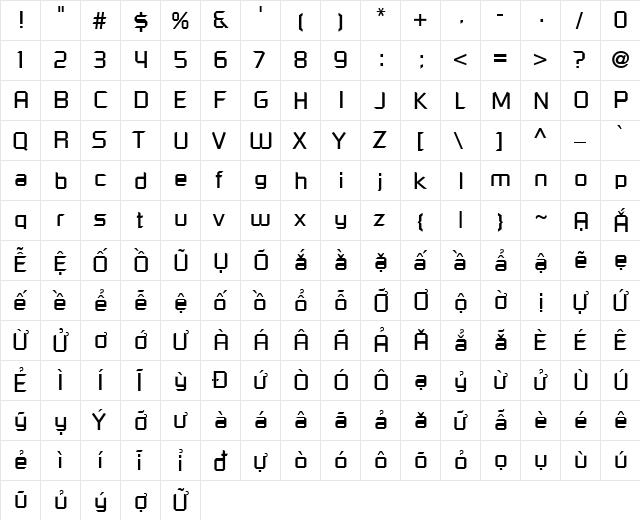
VI Chi Lan Normal Font Preview
VI Chi Lan Normal
Design Context for VI Chi Lan Typeface
VI Chi Lan is a composed and adaptable typeface that performs quietly and consistently across a wide range of design contexts.